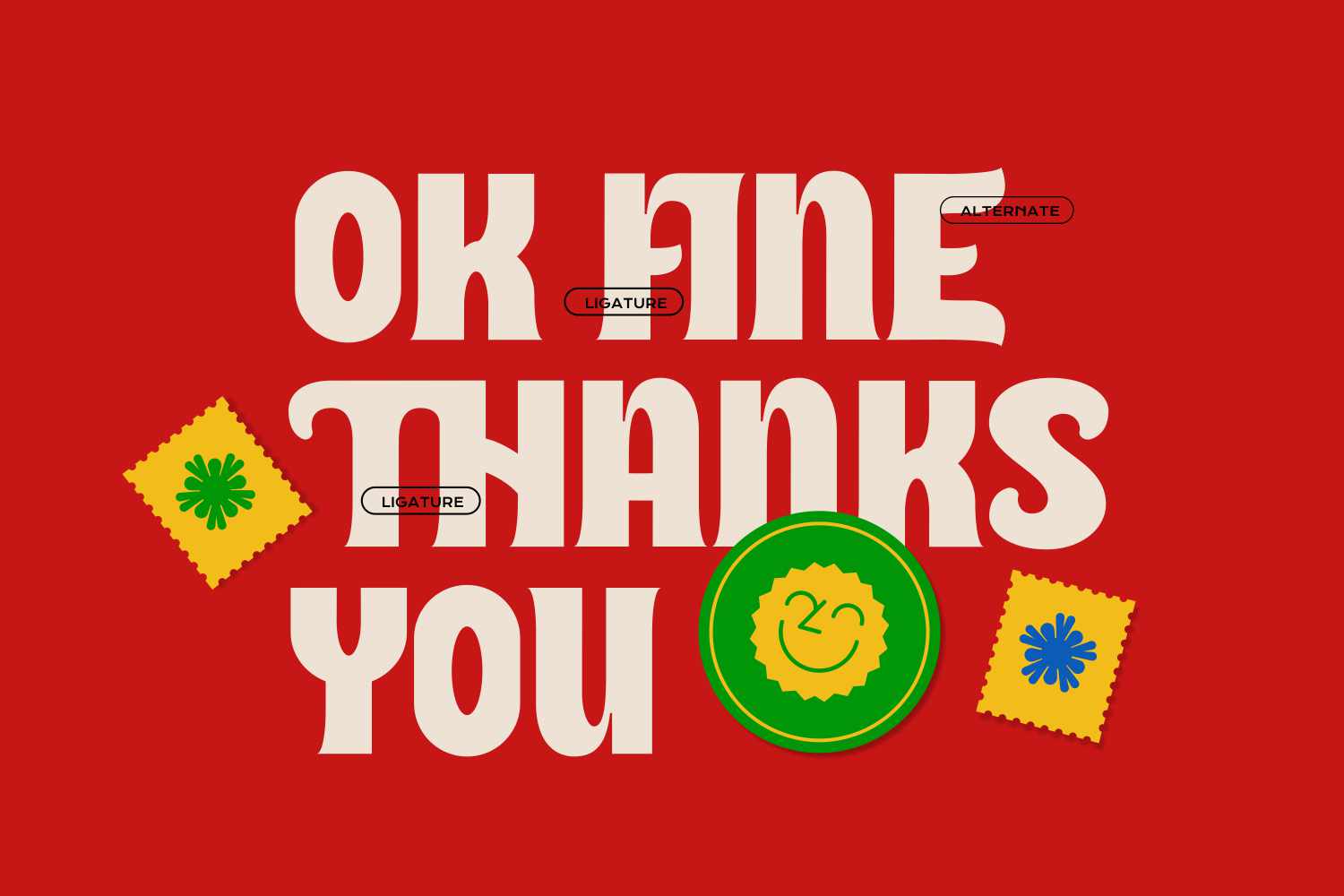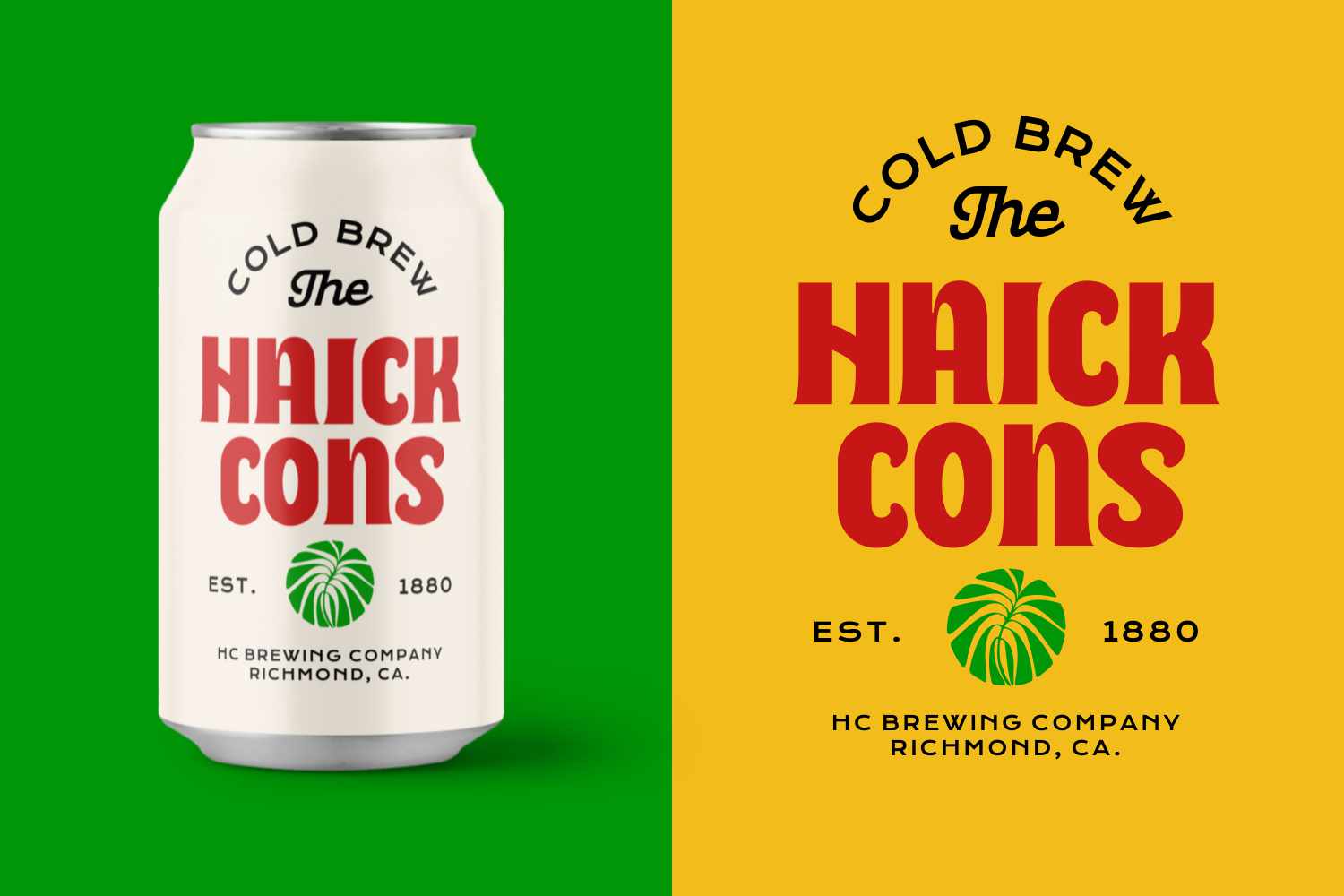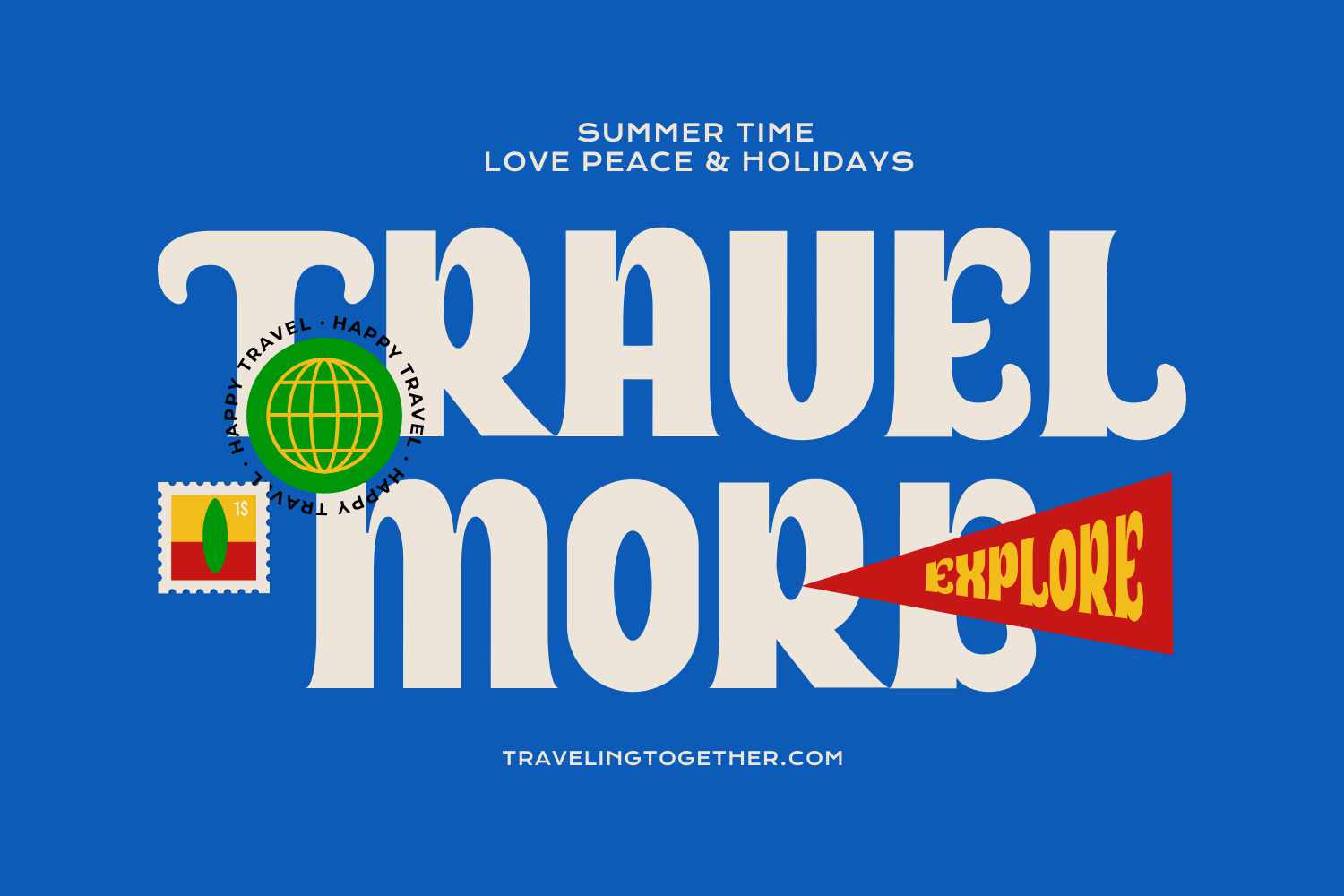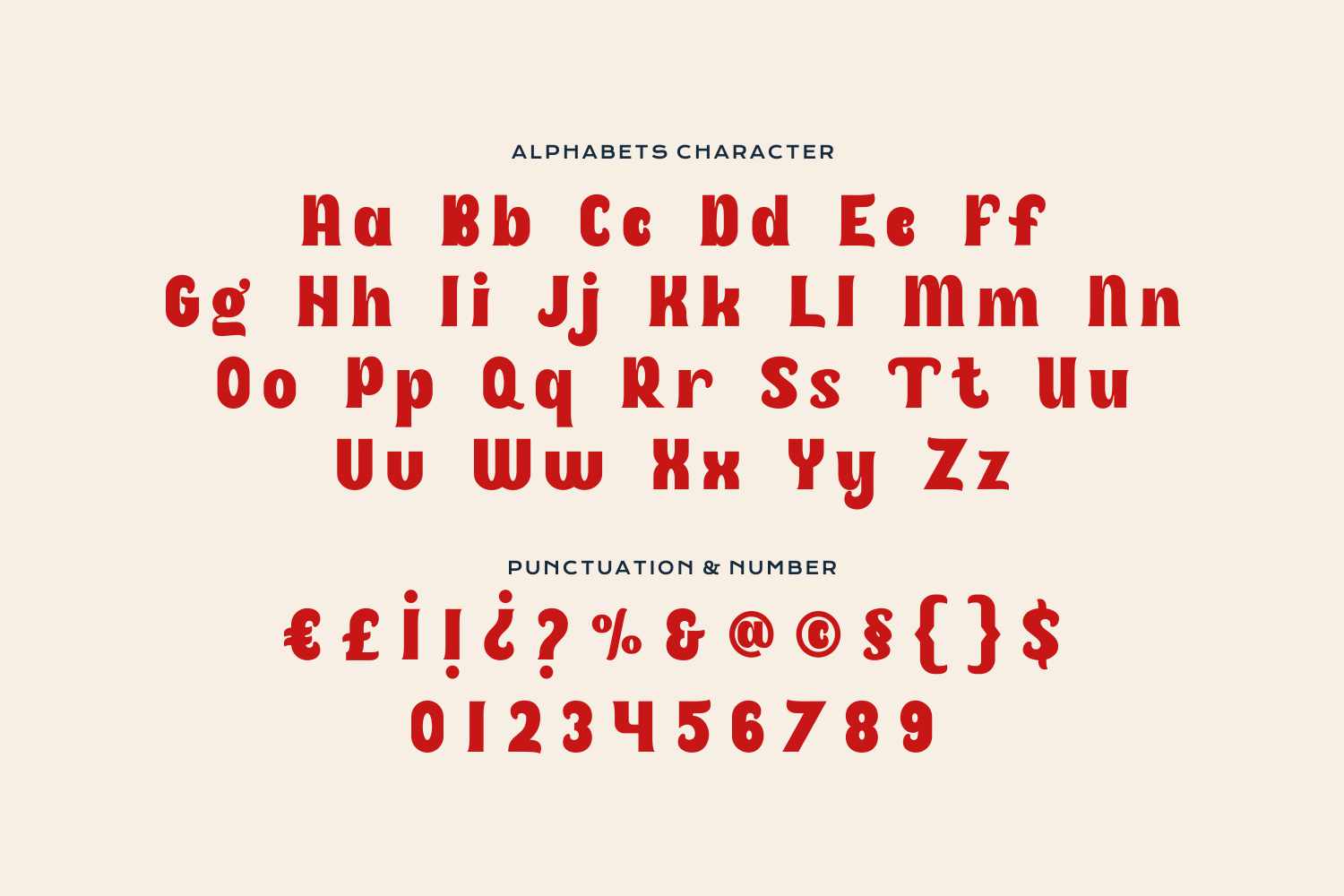
Kod’s Hulling is a Unique Sans Serif Font with a bold and playful character, perfect for creating eye-catching headlines and branding. Its rounded edges and distinctive shapes give it a retro yet modern vibe, making it versatile for logos, packaging, posters, and advertising design. The font’s personality shines through in both digital and print, bringing fun and energy to any project.
Equipped with alternate characters and ligatures, Kod’s Hulling offers creative flexibility for customized typography. Its balance between quirky charm and strong readability makes it ideal for lifestyle brands, editorial layouts, and product labels that want to stand out with a bold, stylish voice.
Kod’s Hulling